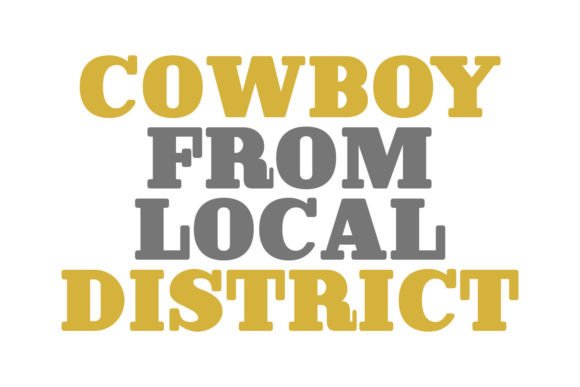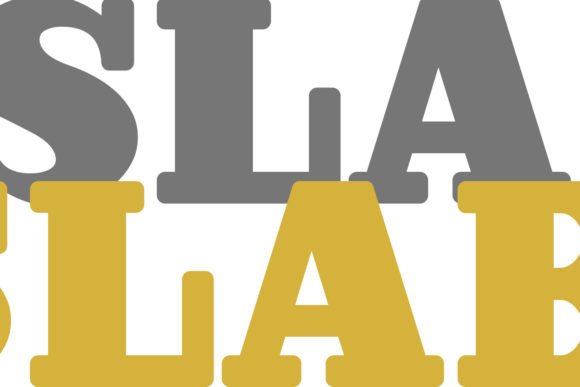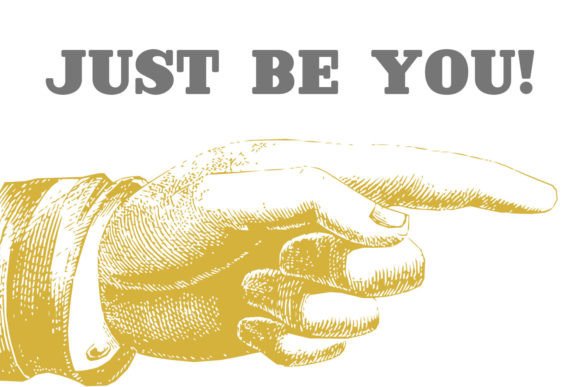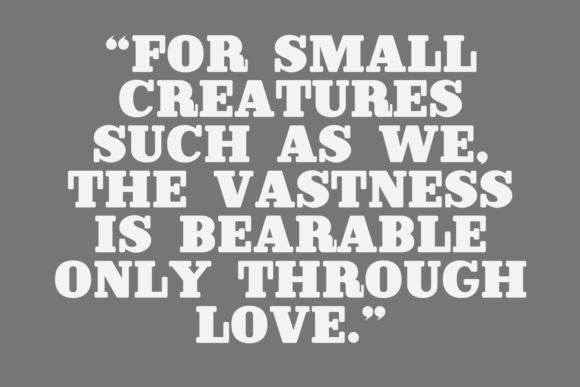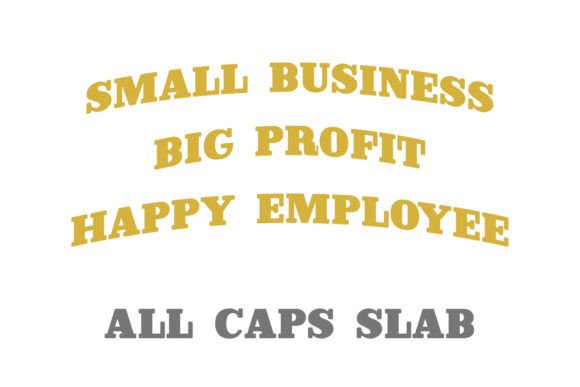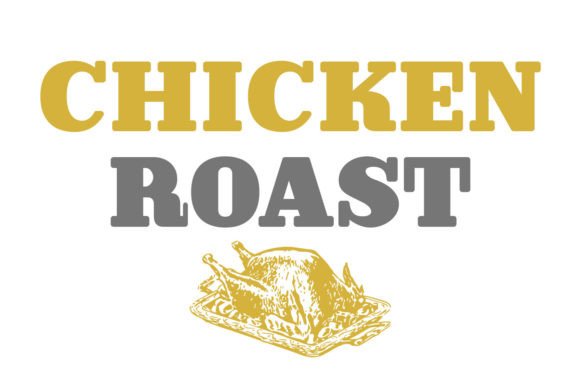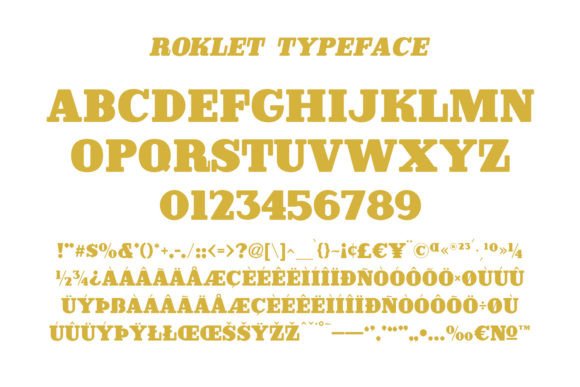
Roklet Font
ROKLET FONT SPECIMEN
Roklet is a stylish and bold semi slab serif font. No matter the topic, this font will be an incredible asset to your fonts’ library, as it has the potential to elevate any creation.